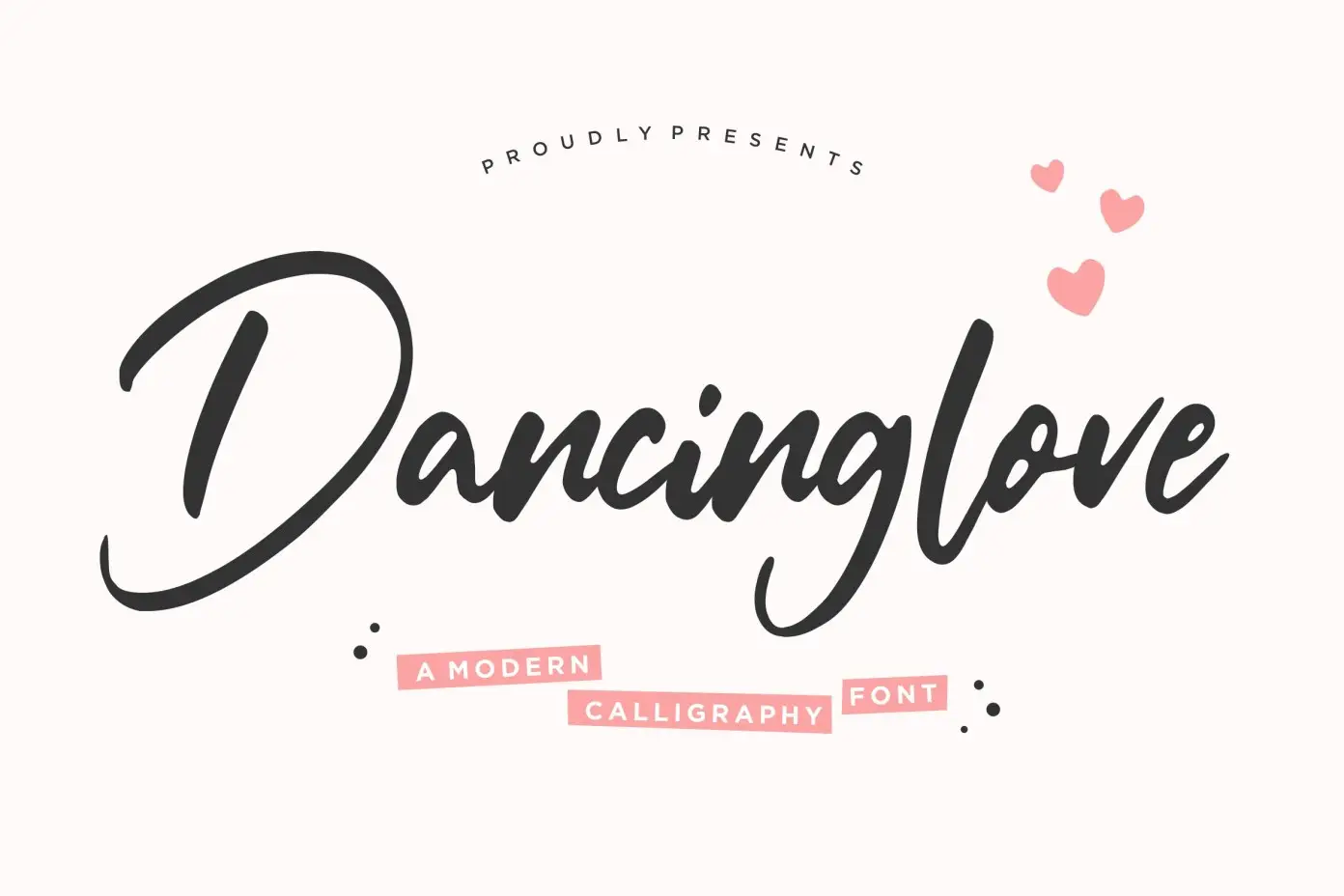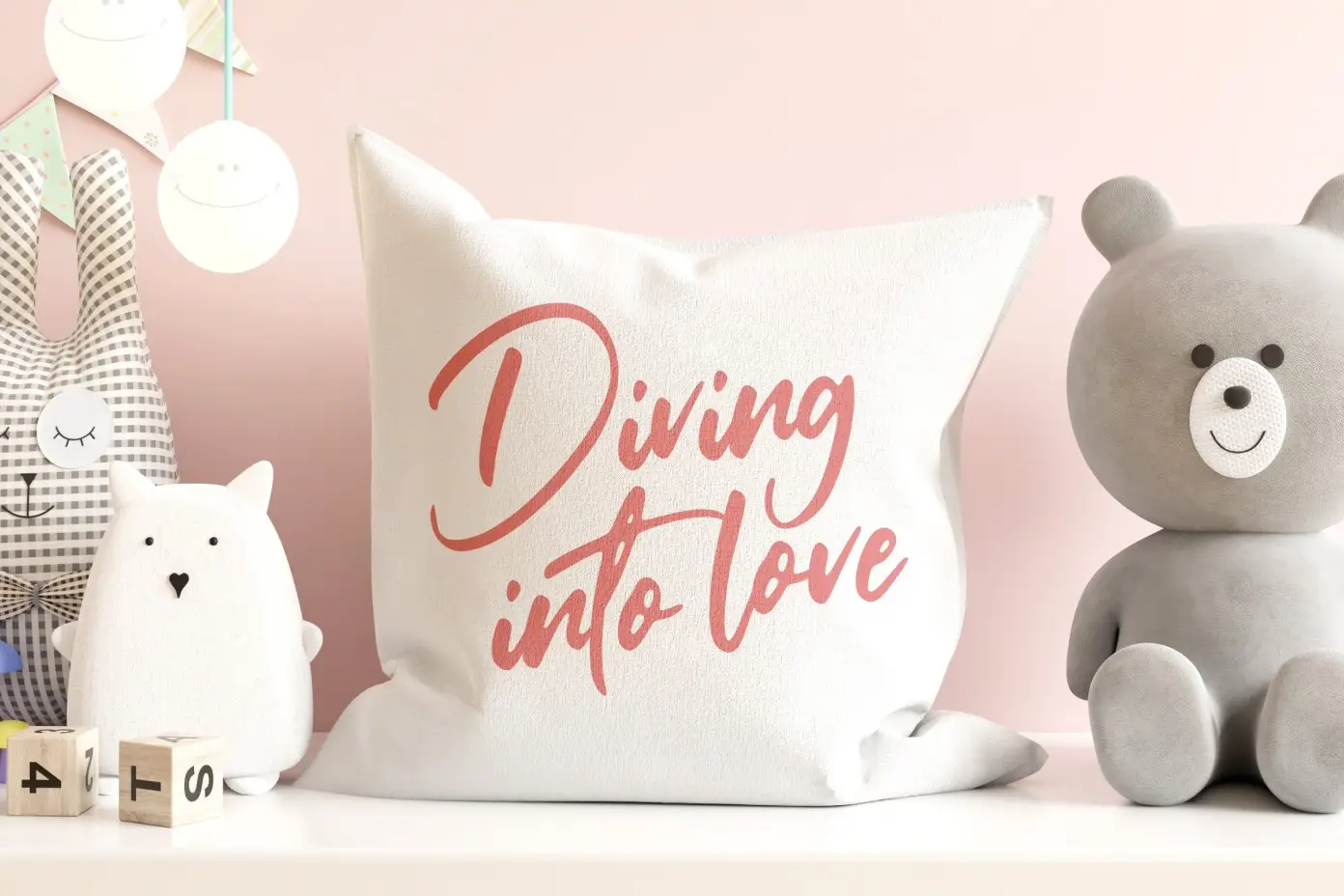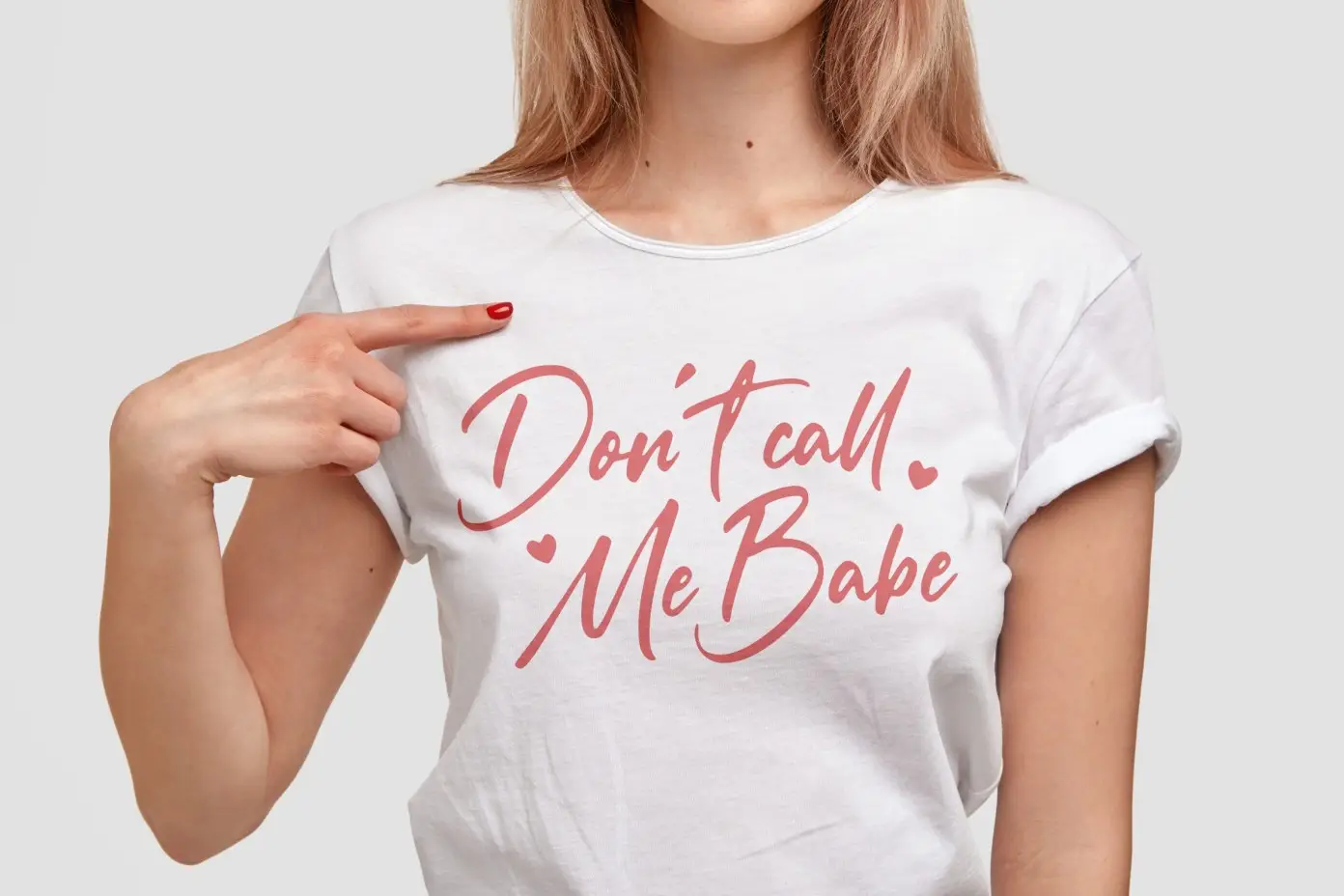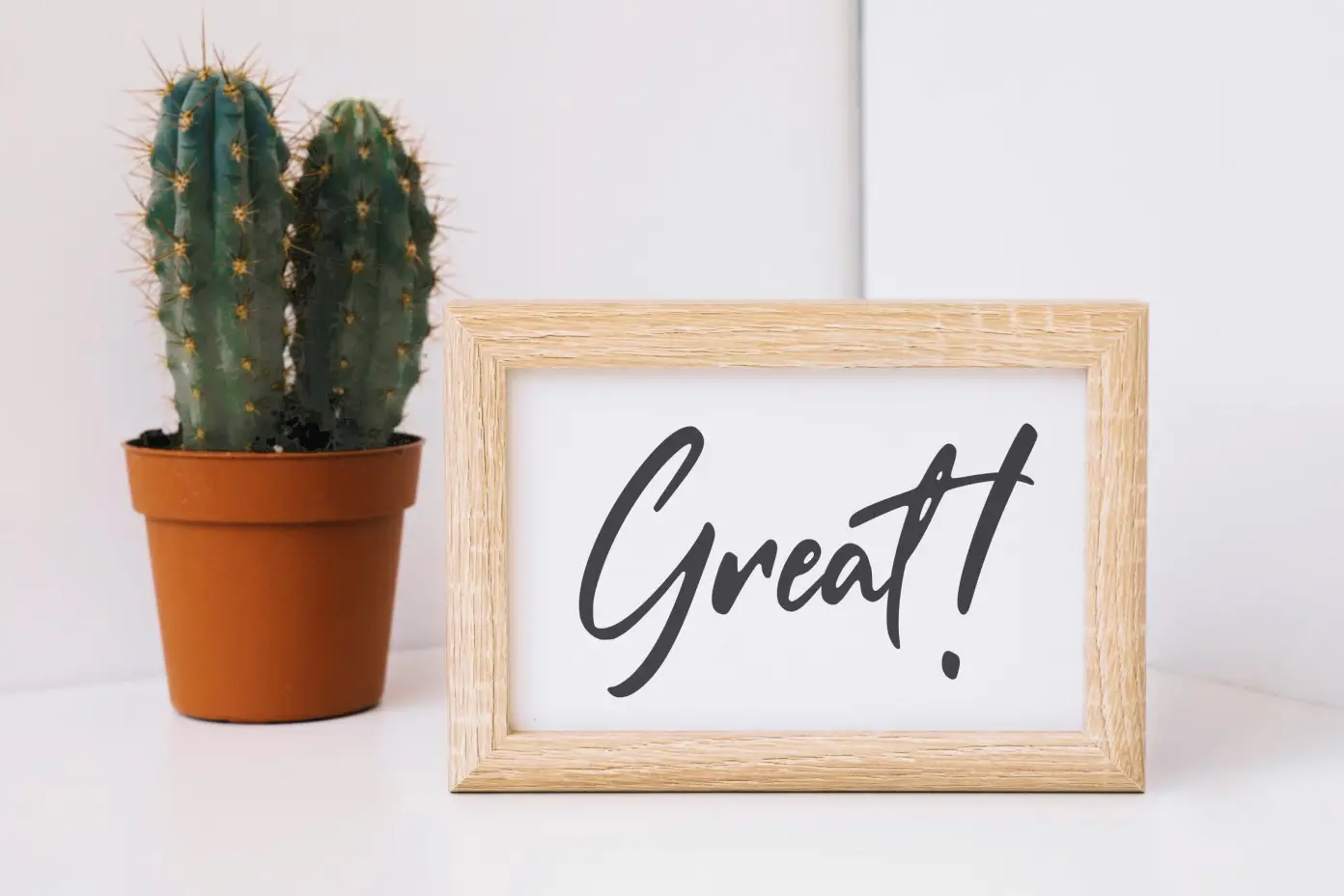
Dancinglove Script Font
The Dancinglove Script Font is a beautifully crafted typeface that brings a touch of elegance and charm to your designs. With its flowing curves and stylish strokes, this font is perfect for a variety of creative projects.
• Stylish script design with a modern flair
• Easy to read at various sizes
• Ideal for branding, logos, and invitations
• Perfect for web and print projects
• Use in UI designs for a friendly and approachable look